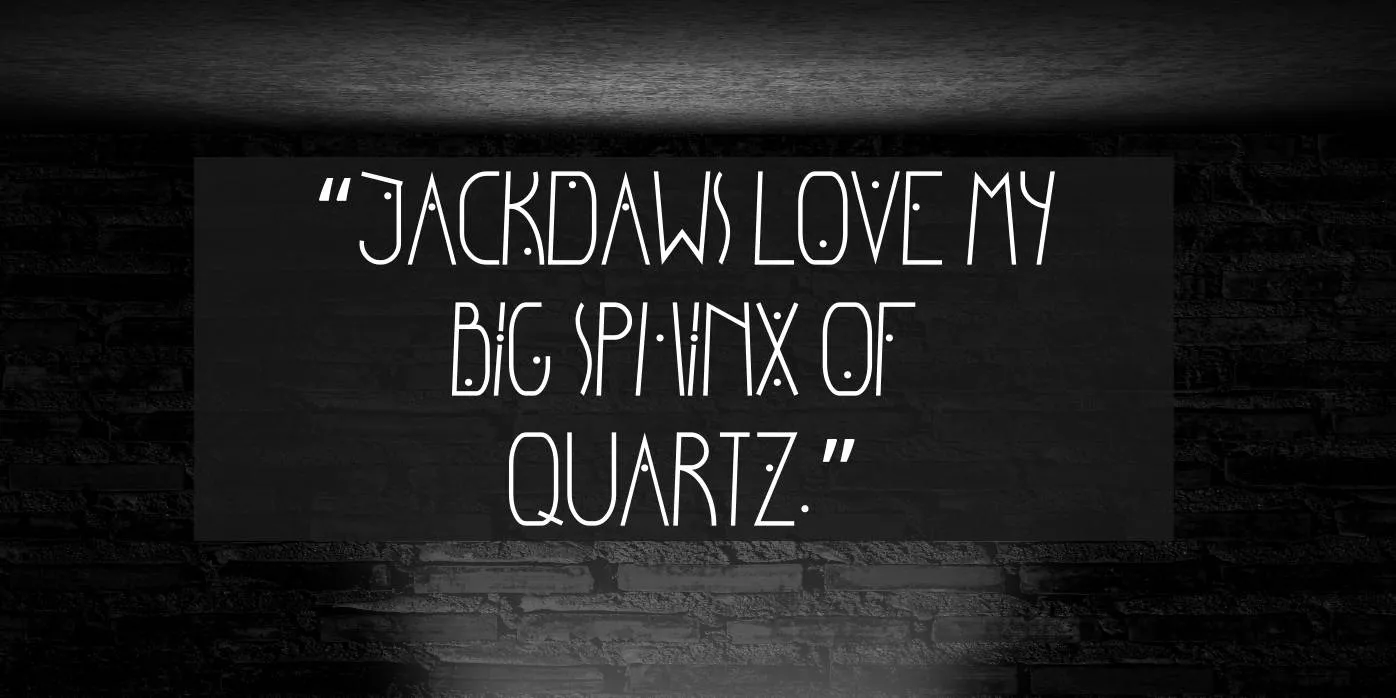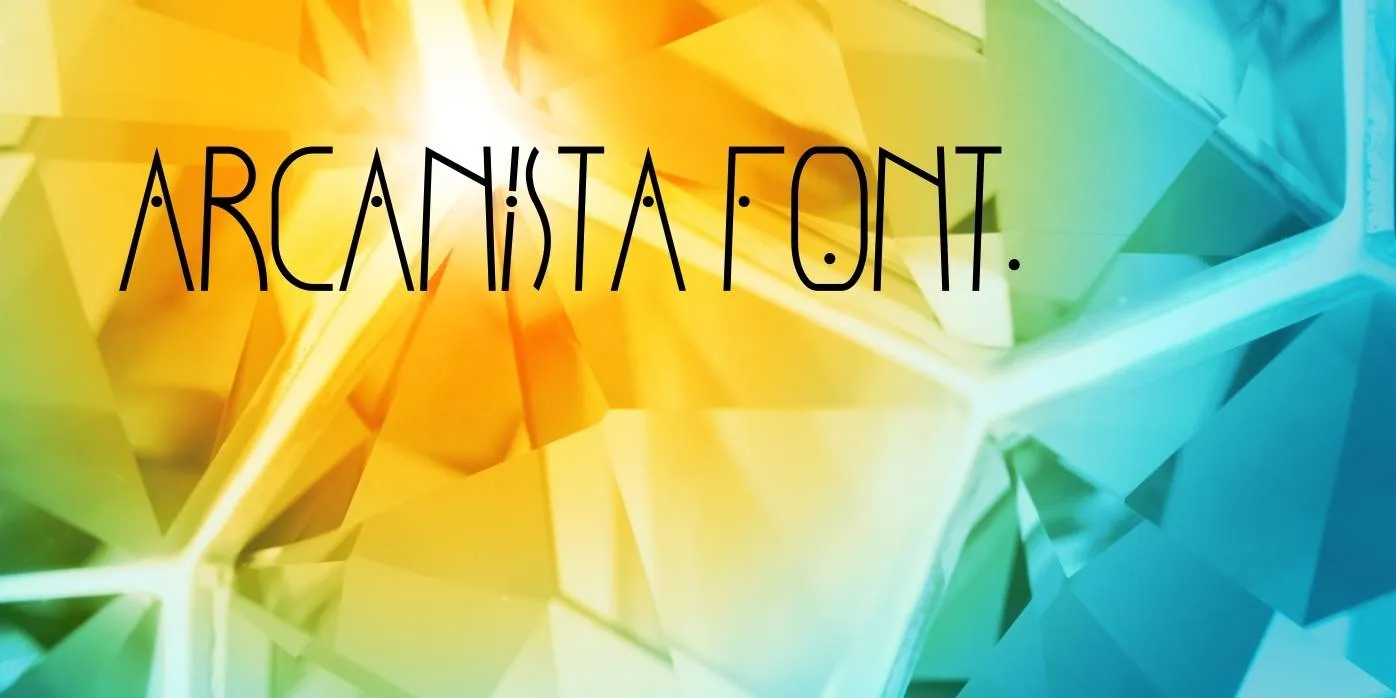
Arcanista Font
Arcanista Font is very popular and manufactured by very famous designer Victor Tramontin. This font belongs to the Fancy typeface. This awesome font is compatible with Windows and Mac OS X which makes this font for Photoshop viable, especially for Photoshop CSS and for any other version of Photoshop. This typeface file (TTF) itself has 8 large sizes of characters, containing 126 characters each.
These characters make the performance best. This font has three different sub-styles which are Open sub-style, Regular sub-style, and Spicy sub-style. You can use font for Corel Draw. This staggering font is very ideal to be used for making logos because this cute font has a unique design that makes it easy to recognize by people.
Trolls Font is alternative to this font family. This classy font is designed with vintage and elegant styles which makes it very attractive and stylish. This typeface also has support for special characters that are ideal to be used in making different logos or other texts that are significant to people. This advanced generator tool gives an attractive look to your designs.